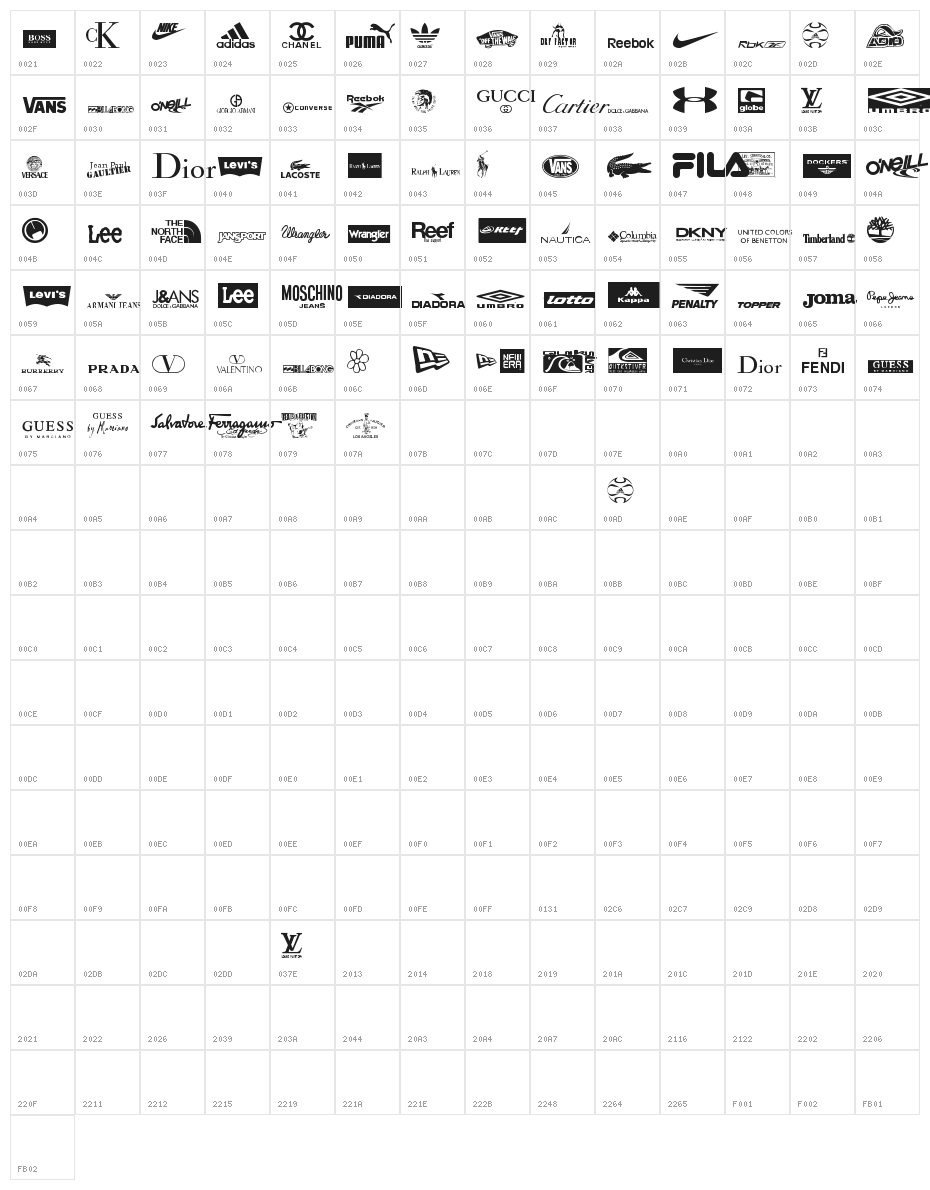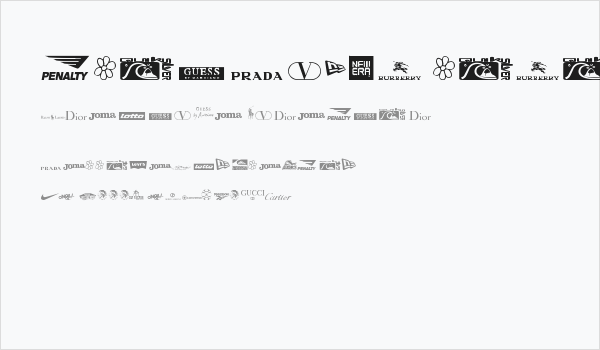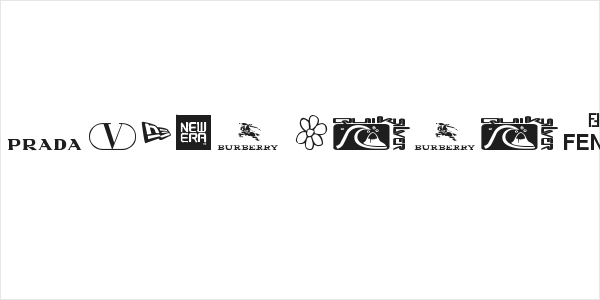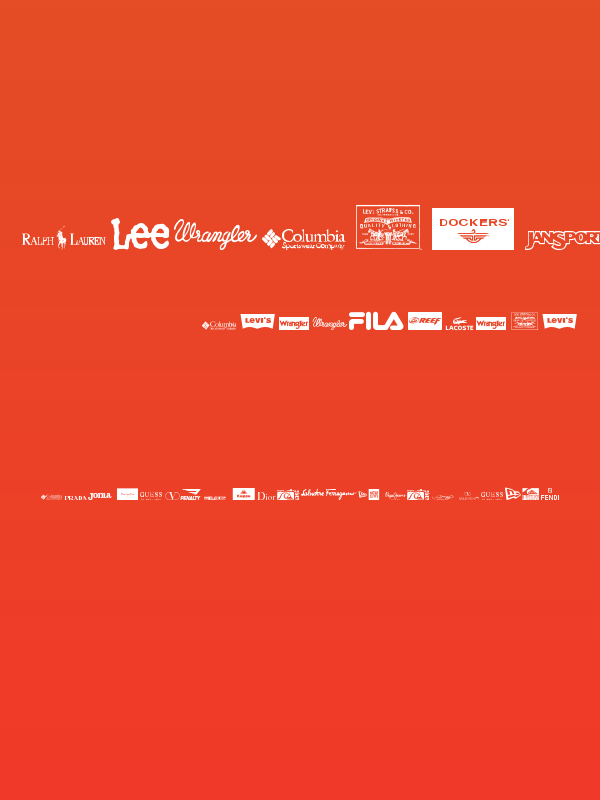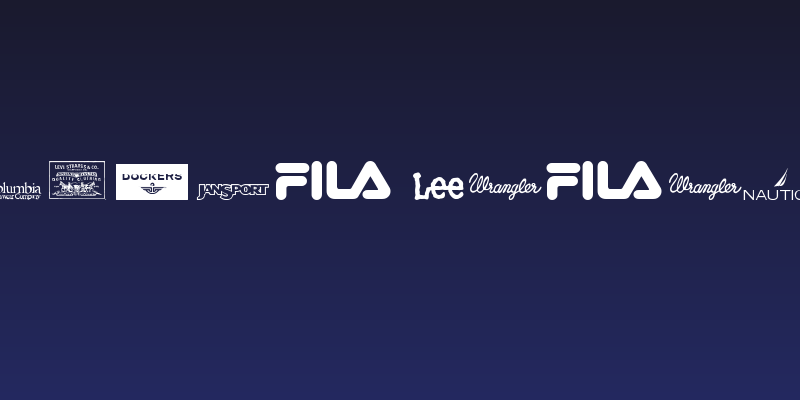
clothing logos tfb Font
clothing logos tfb Description
A diverse collection of logotype designs representing various clothing and sportswear brands, featuring a mix of sans-serif, serif, script, and decorative styles. The fonts range from bold, geometric sans-serifs to elegant scripts and modern serifs, often accompanied by iconic brand symbols or graphic elements.
| Overall Style | Modern, Classic, Decorative, Sporty |
| Use Case | Logos, Branding, Headlines |
| Proposed Projects | Branding, logo design, fashion campaigns, retail signage, promotional materials. |